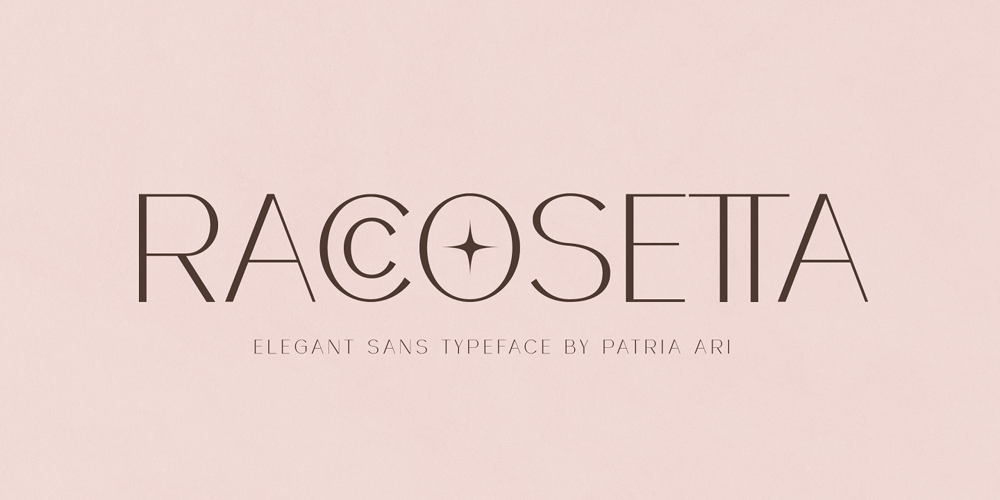
Raccosetta Font Family was designed by Patria Ari Wijonarko and published by Patria Ari. Raccosetta contains 1 styles and family package options. Raccosetta is an elegant sans typeface with touch of modern and simplicity. With this typeface, you can use it for magazine cover, headline, wedding invitations, logo, powerpoint templates design, and many more.What’s included? Uppercase Characters Lowercase Characters Multilingual support. Hope you enjoy the products.